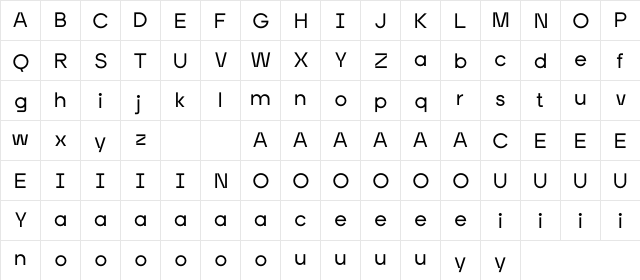
Enzyme Regular
| Designer | Ryan Miglinczy |
Design Context for Enzyme Typeface
Enzyme offers clean, dependable letterforms without strong stylistic allegiance, making it a practical choice for designers who need flexibility.